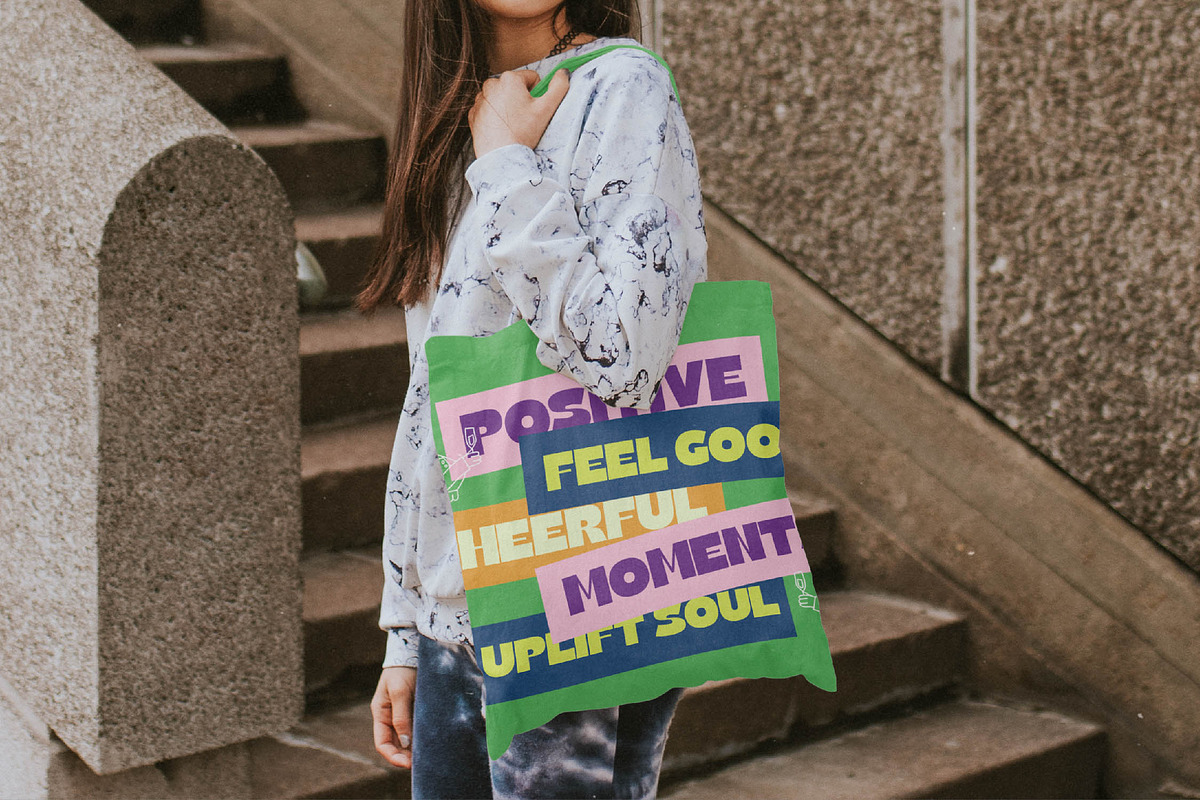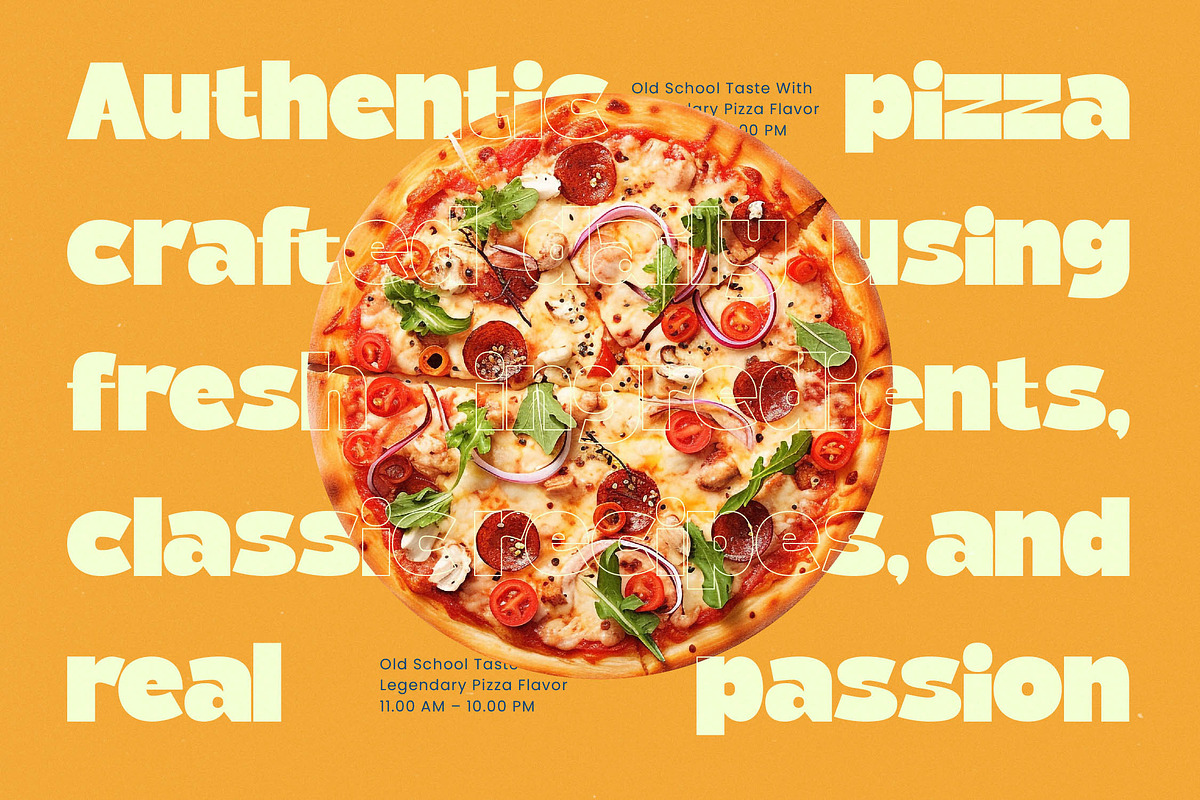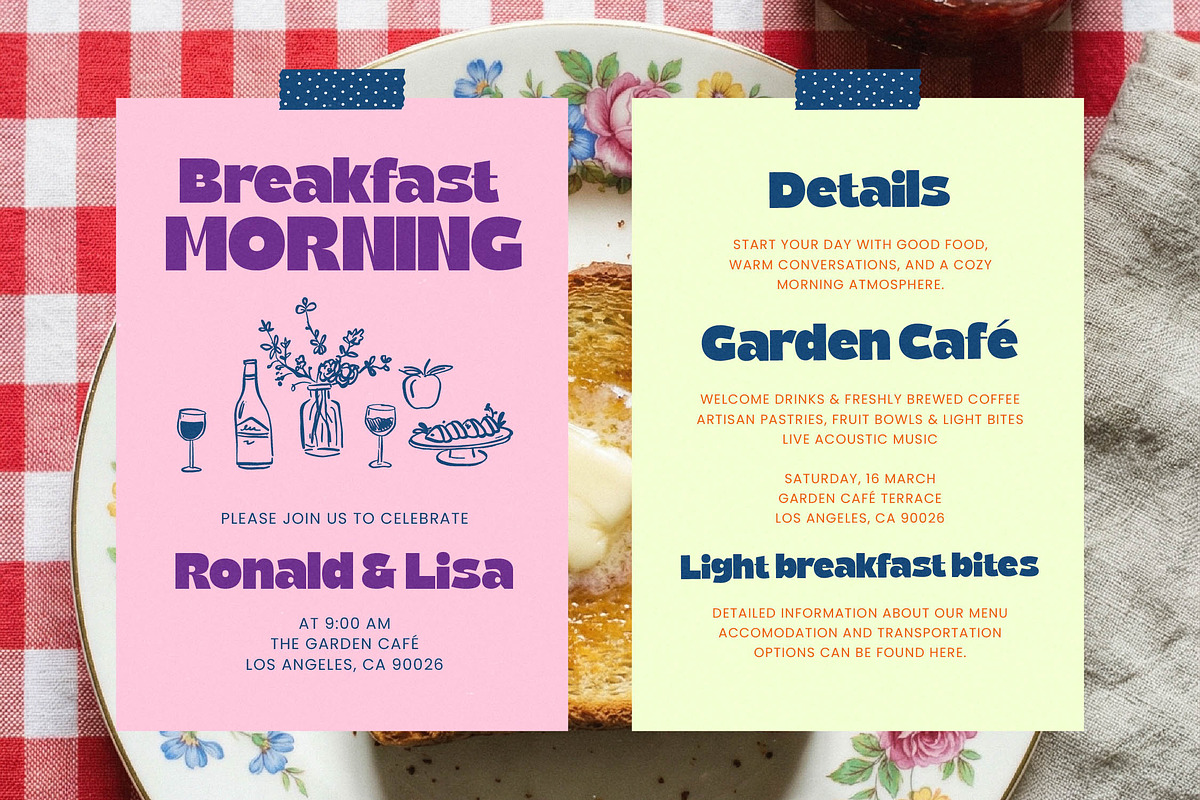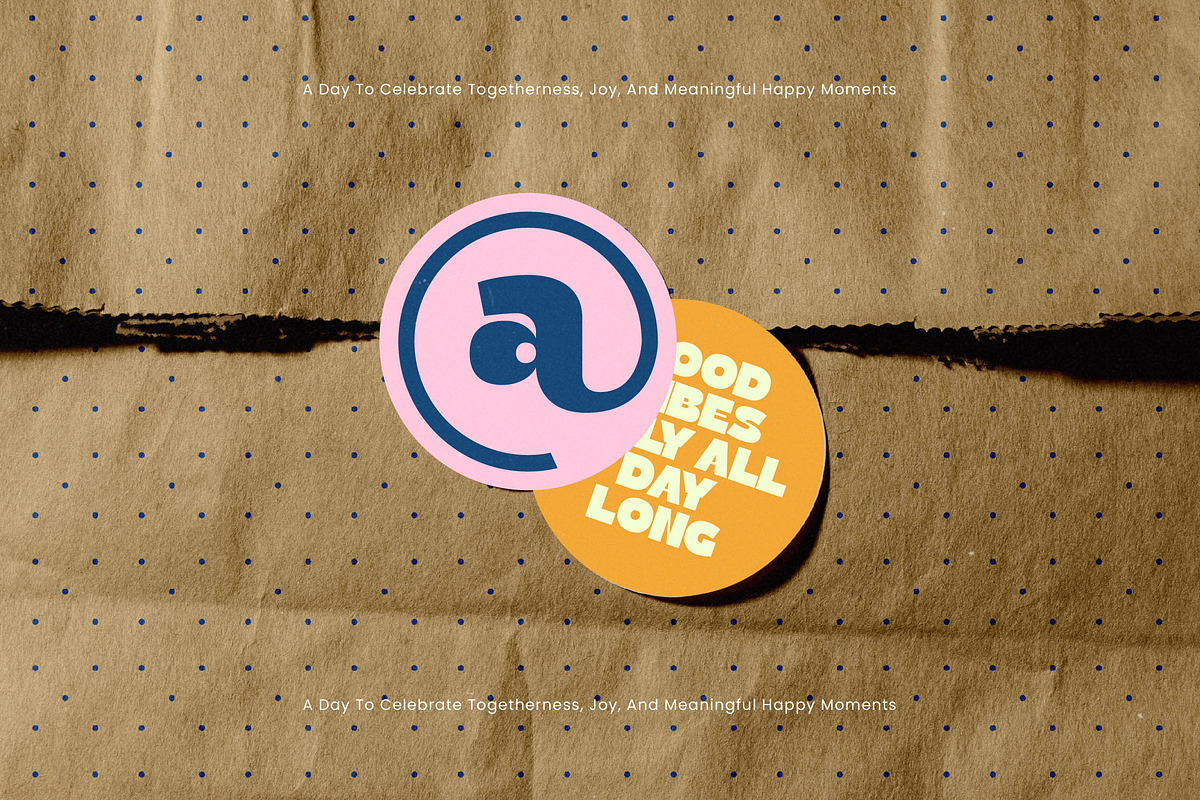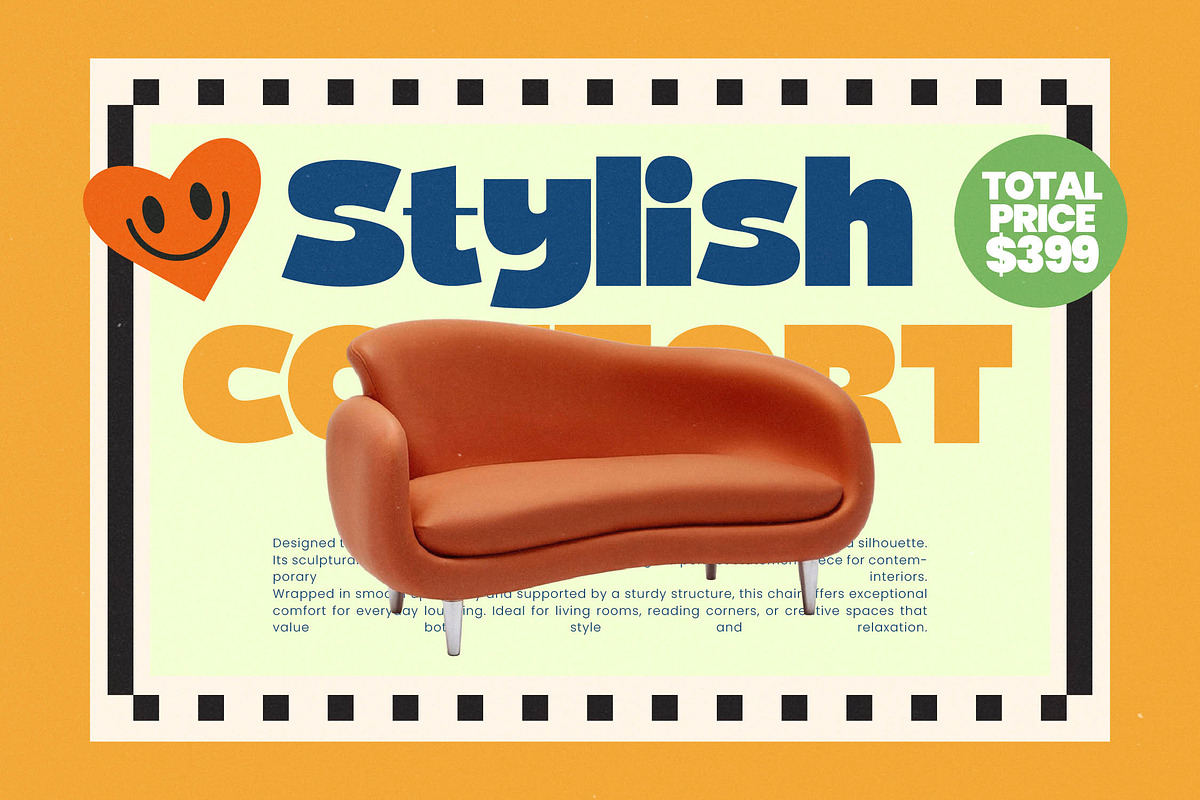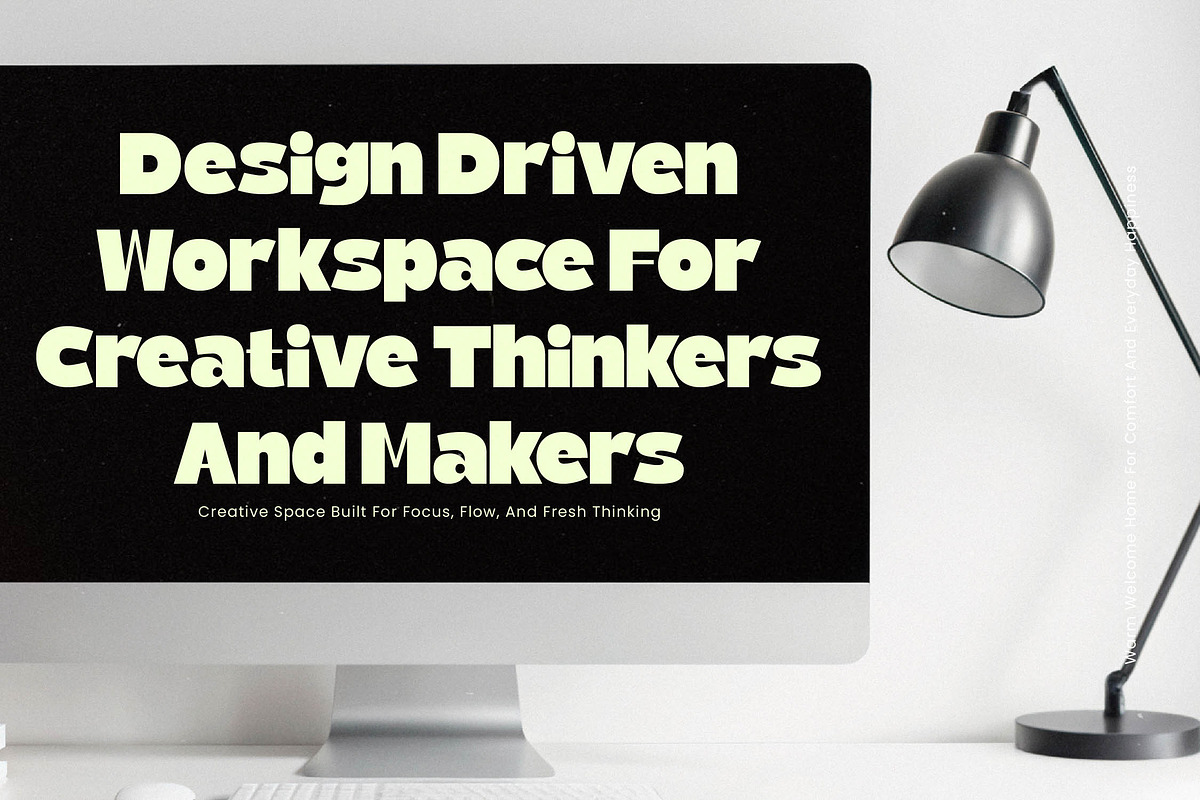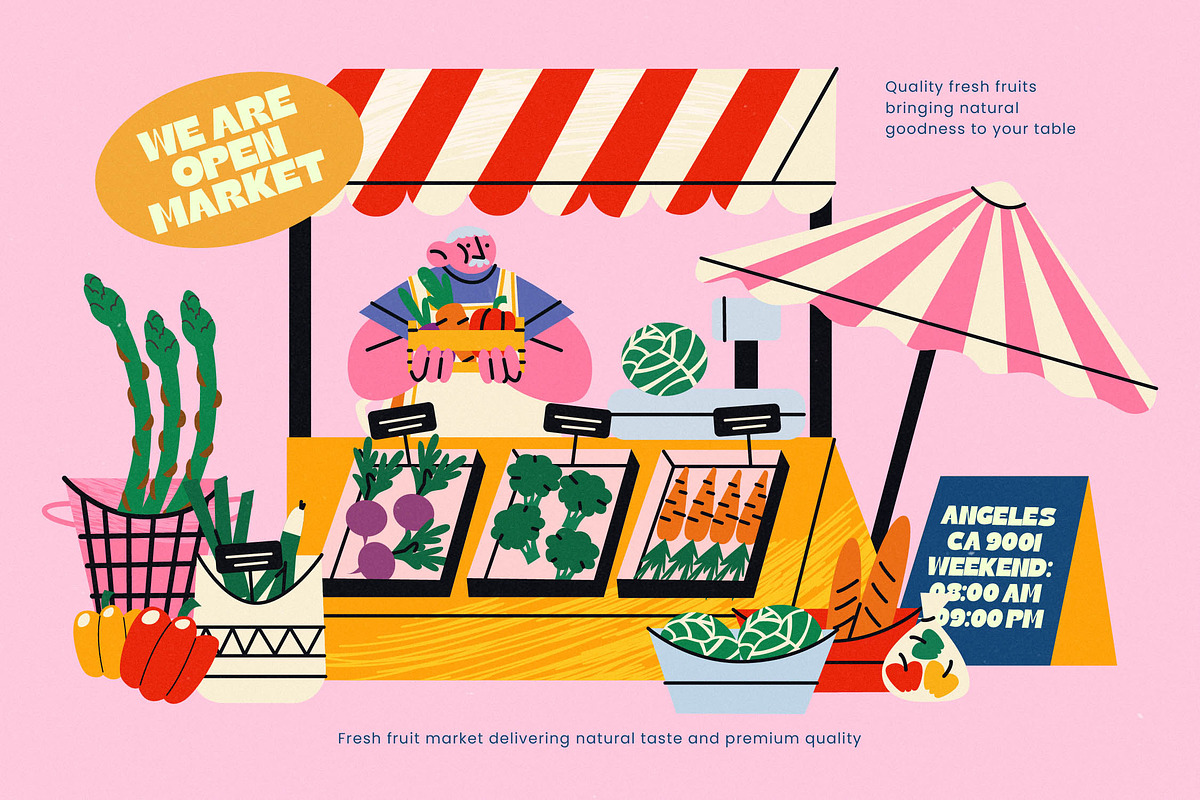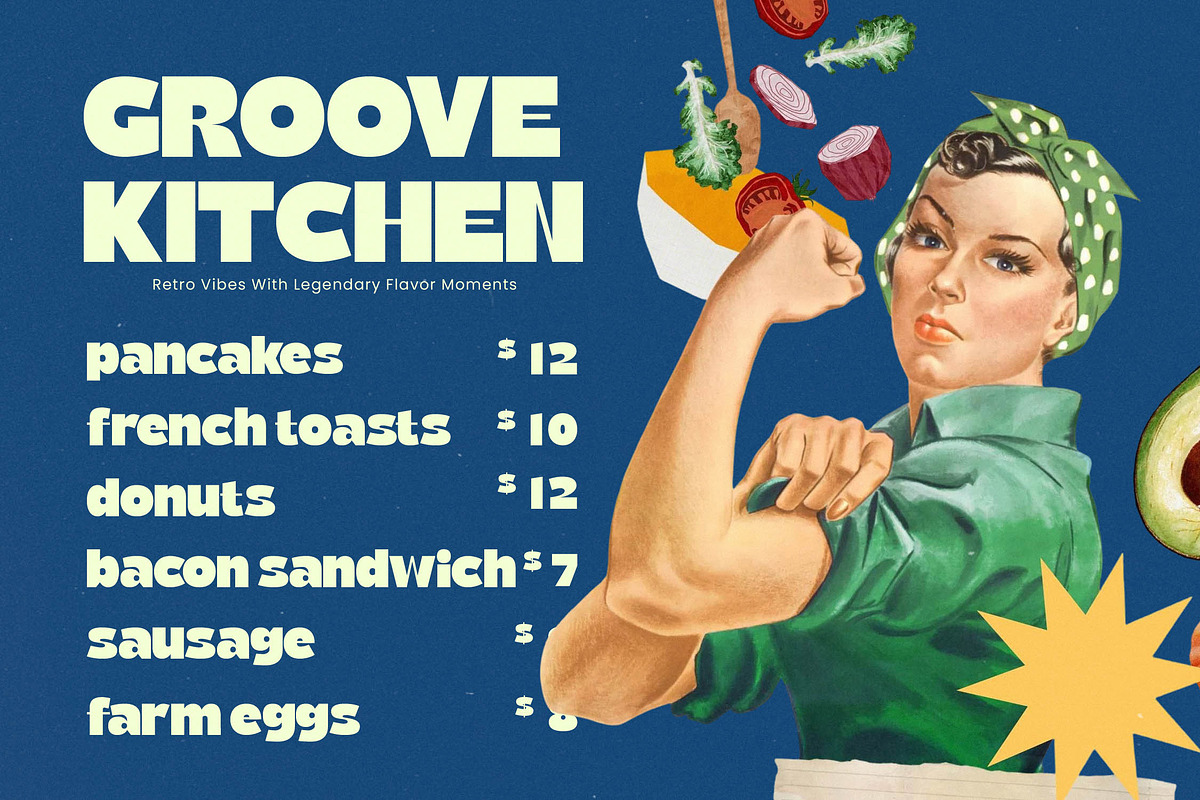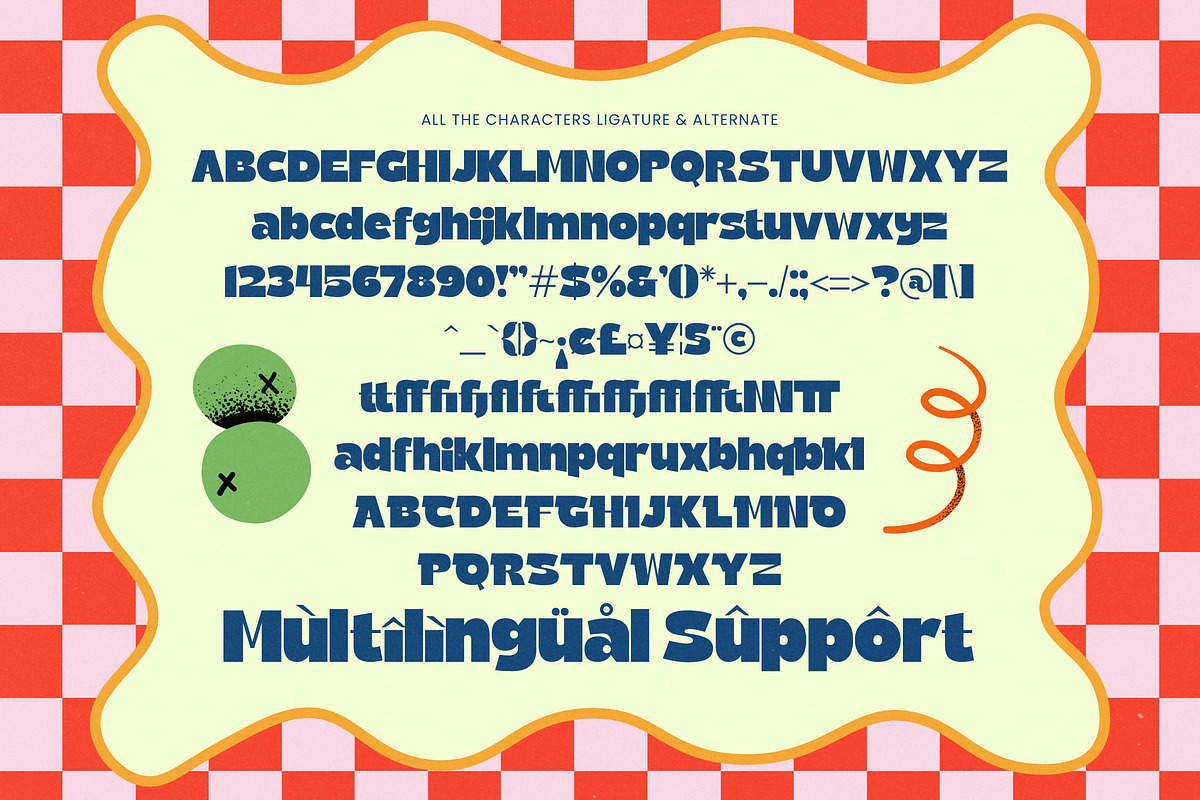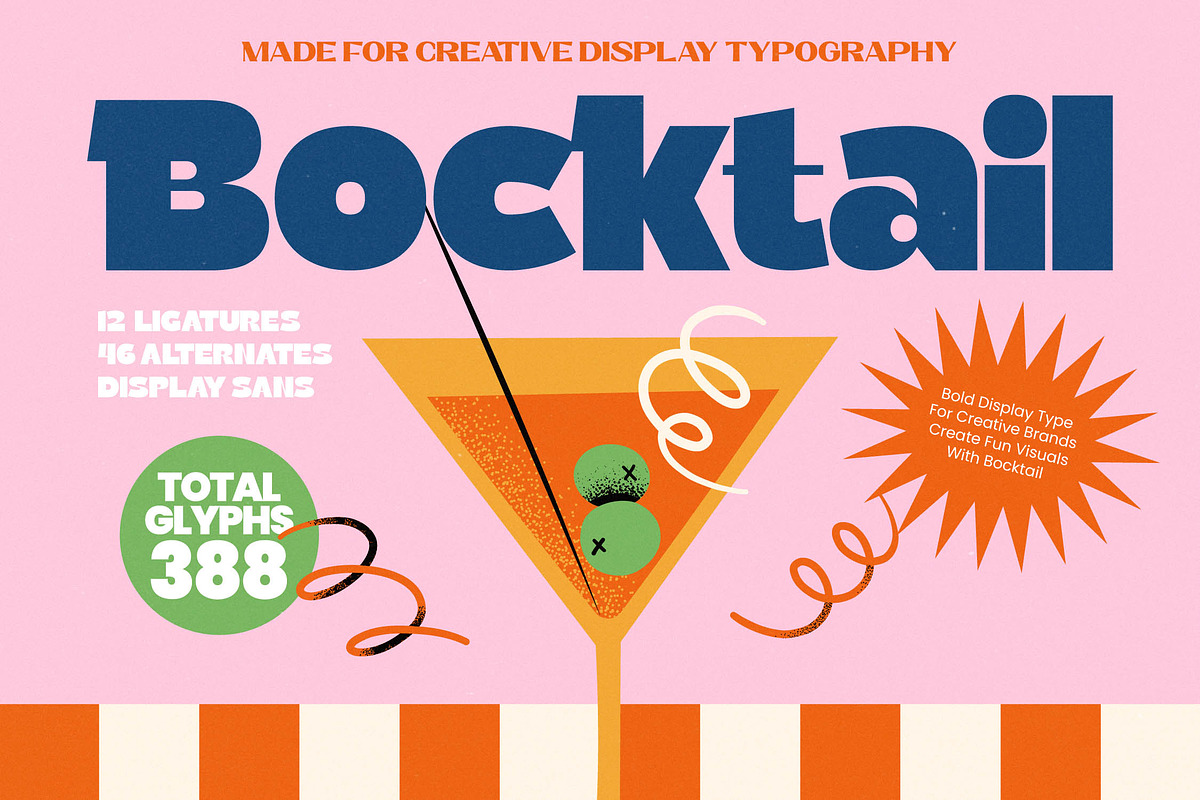
Bocktail - Retro Bold Display Sans
Elevate your visual identity with the vibrant and spirited essence of Bocktail, a font designed to make a lasting impression in any creative space. This typeface captures the joyful energy of a perfect social gathering, blending vintage charm with a contemporary aesthetic.
Inspired by the chunky, blocky aesthetics of mid-century lounges and the iconic groovy typography of the 1970s, this font was crafted specifically for high-impact display purposes. The design draws from classic menus and neon signage, resulting in a look that feels both timelessly nostalgic and remarkably refreshing.
This typeface exudes a playful yet professional vibe that ensures your projects stand out with a distinct modern serif display and luxury typography feel. Its heavy letterforms and unique alternates provide a high-contrast serif quality that delivers a powerful editorial font presence and significant branding impact.
Perfectly aligned with the resurgence of retro aesthetics, this font taps into the current modern serif trend while maintaining its own unique graphic voice. It is a staple for designers seeking editorial display fonts that prioritize character-driven typography to tell a compelling and memorable visual story.
Whether you are working on a high-end logo design or comprehensive branding systems, this typeface is versatile enough to handle every creative challenge. It excels in bold editorial layouts, eye-catching food packaging, sophisticated wedding invitations, and cutting-edge fashion lookbooks.
To give you full creative control, the package includes 12 unique ligatures and 46 character alternates for customized looks. You can also explore decorative swashes while enjoying full multilingual support and access to a wide range of international characters for global reach.